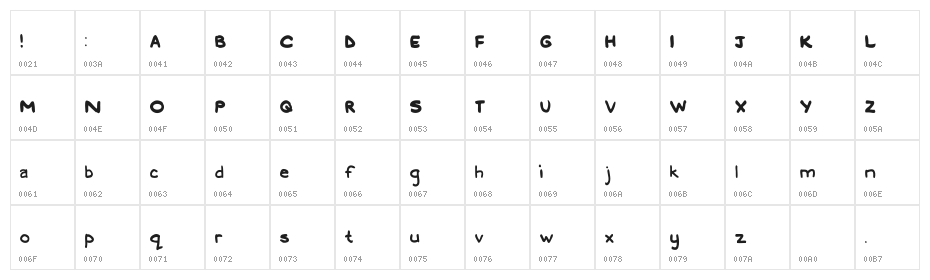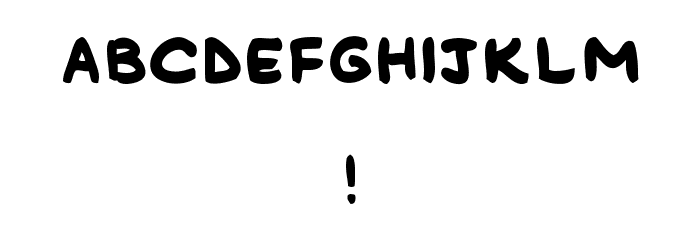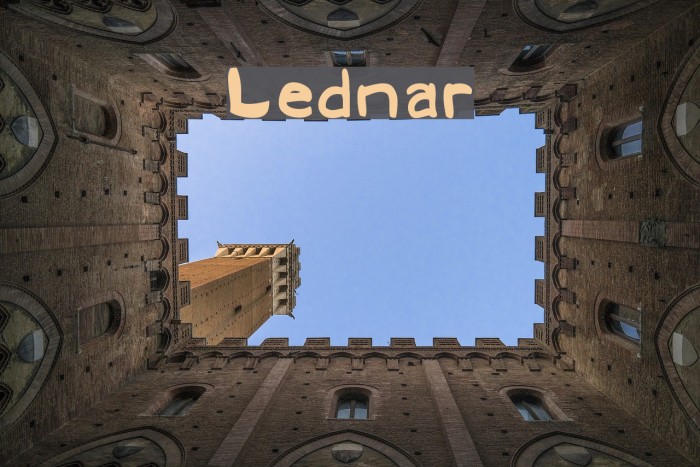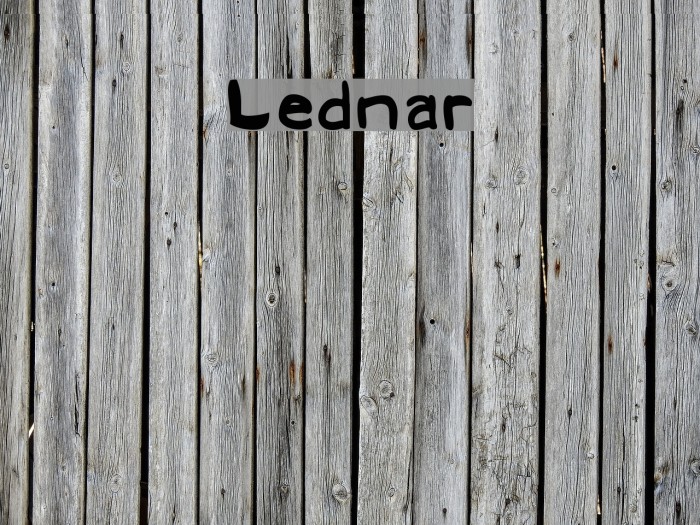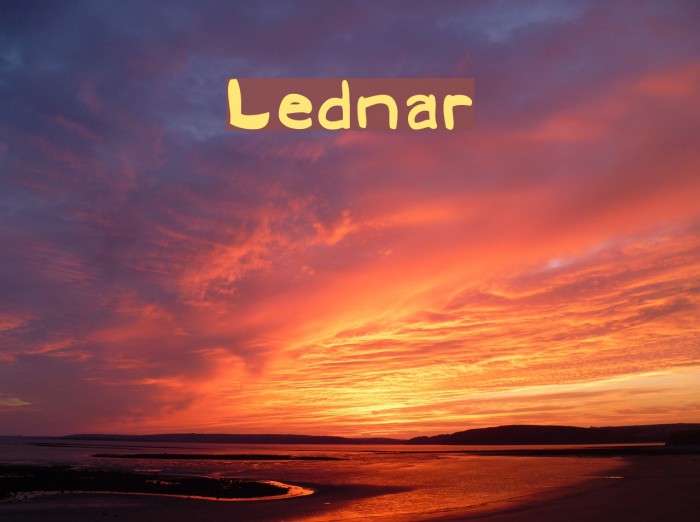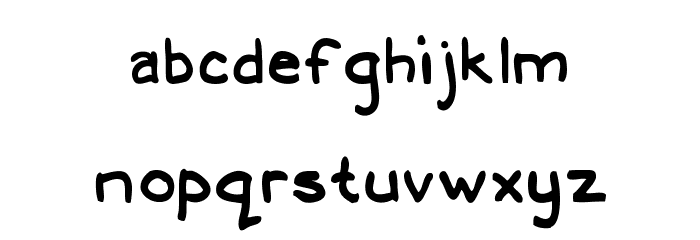
Lednar Font
Lednar Description
This playful and whimsical font features rounded, bold characters with a hand-drawn appearance. The uppercase and lowercase letters exhibit a consistent thickness, contributing to a friendly and approachable style. The font's informal nature is enhanced by its slightly irregular shapes, giving it a casual and relaxed feel. The characters are well-spaced, ensuring readability while maintaining a lively and energetic vibe. This font is ideal for projects that require a touch of fun and creativity, such as children's books, playful branding, or casual invitations.
| Overall Style | Playful |
| Proposed Projects | Children's books, playful branding, casual invitations, creative posters. |